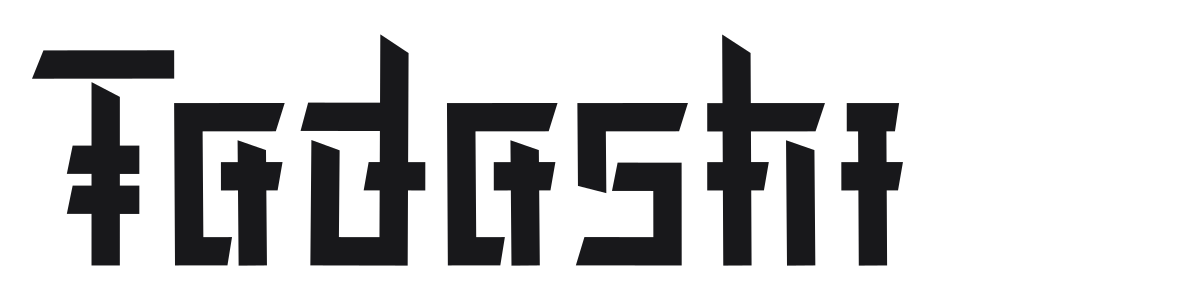
Tadashi
Tadashi is a bold modular display font built from rigid rectangular strokes with angular notch cuts that reference the structure of East Asian brush calligraphy. The geometric construction is strict and heavy, with every character assembled from interlocking horizontal and vertical segments. It carries a strong urban edge that suits gaming, streetwear, and action-oriented branding.